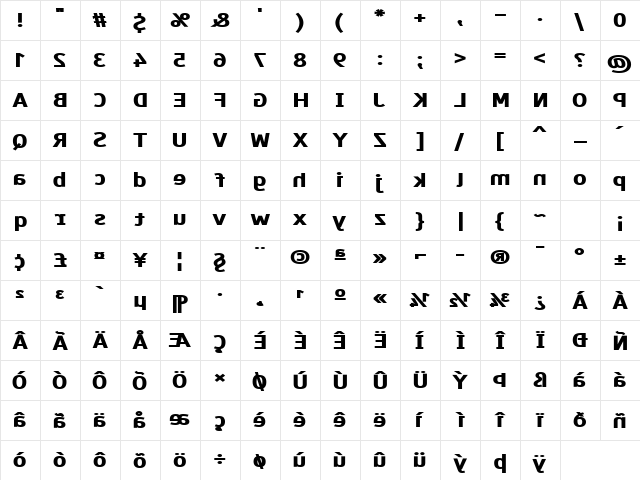
Paneuropa Wrong Way Regular
| Foundry | Peter Wiegel |
| Designer | Peter Wiegel |
Design Context for Paneuropa Wrong Way Typeface
Paneuropa Wrong Way is a composed and adaptable typeface that performs quietly and consistently across a wide range of design contexts.